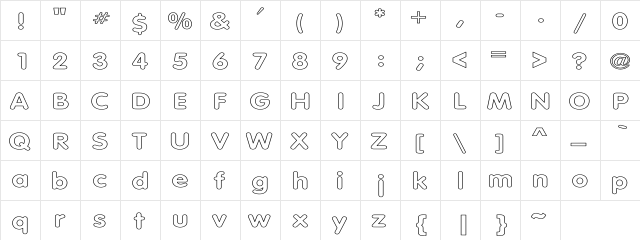
Tubular Hollow Wd Regular
Tubular Hollow Wd offers clean, dependable letterforms without strong stylistic allegiance, making it a practical choice for designers who need flexibility.